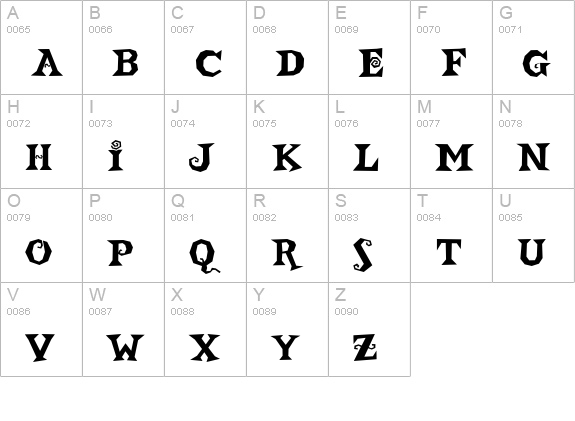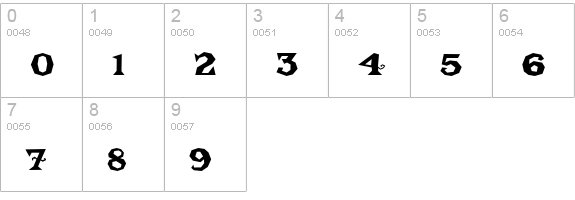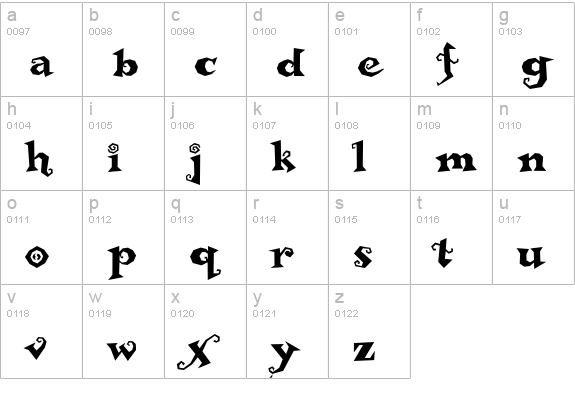
Buckethead Font Details
Introducing the mesmerizing Buckethead font, a unique and eye-catching typeface that is sure to make your designs stand out. This bold and modern font features striking angular characters that exude strength and creativity. Perfect for a variety of design projects, from posters to logos to branding materials, Buckethead font adds a touch of edginess and personality. What makes Buckethead font even more appealing is the fact that it is completely free to download. Yes, you read that right! This amazing font is freely available for download at FontsMarket.com, making it accessible to designers and creators of all levels. So why wait? Add Buckethead font to your collection today and unleash your creativity like never before.